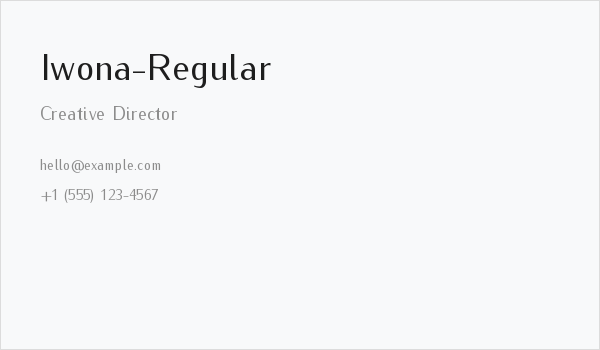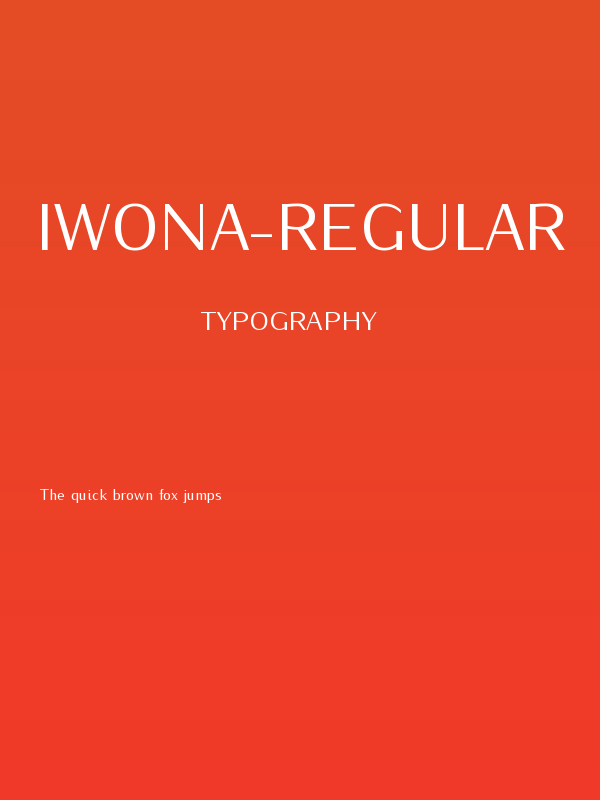
Iwona-Regular Font
Iwona-Regular Description
This typeface presents a clean and modern aesthetic with its sans-serif design. The characters are well-proportioned, offering a harmonious balance between height and width. The uppercase letters are bold and assertive, while the lowercase letters maintain a consistent flow, enhancing readability. The numerals are clear and distinct, making them suitable for various applications. Special characters are designed with precision, ensuring they integrate seamlessly with the rest of the typeface. Overall, this font exudes a professional and contemporary feel, making it versatile for numerous design projects.
| Proposed Projects | Ideal for corporate branding, editorial design, web interfaces, and advertising materials. |